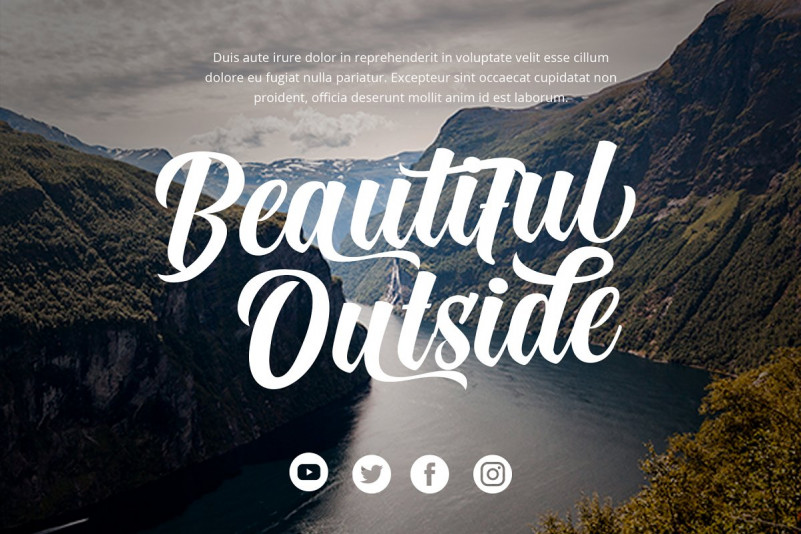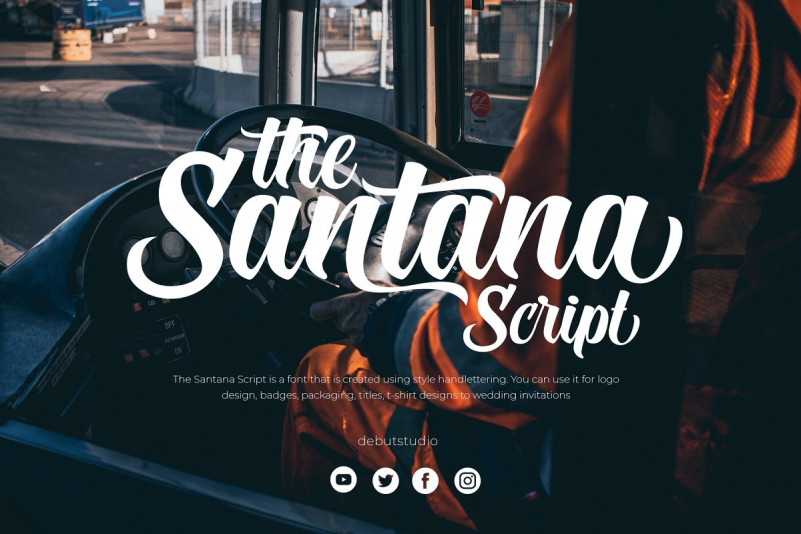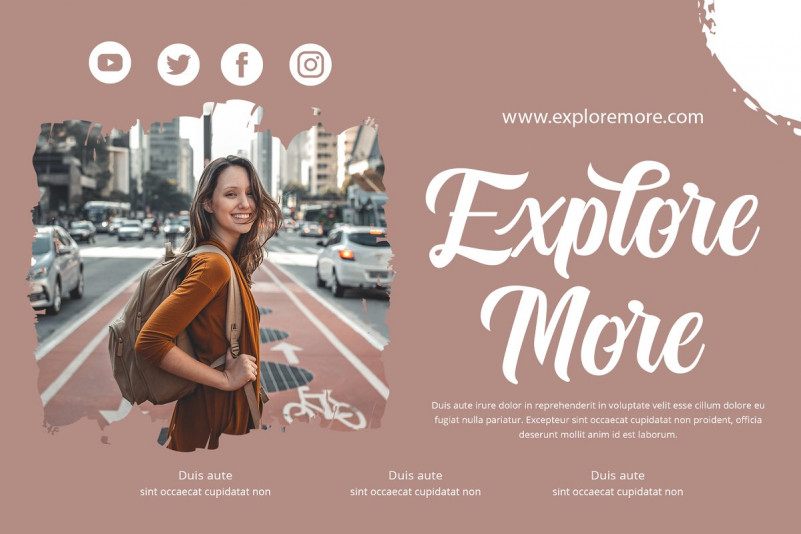
The Santana Font
The Santana Script is a font that is created using style handlettering. You can use it for logo design, badges, packaging, titles, t-shirt design and wedding invitation